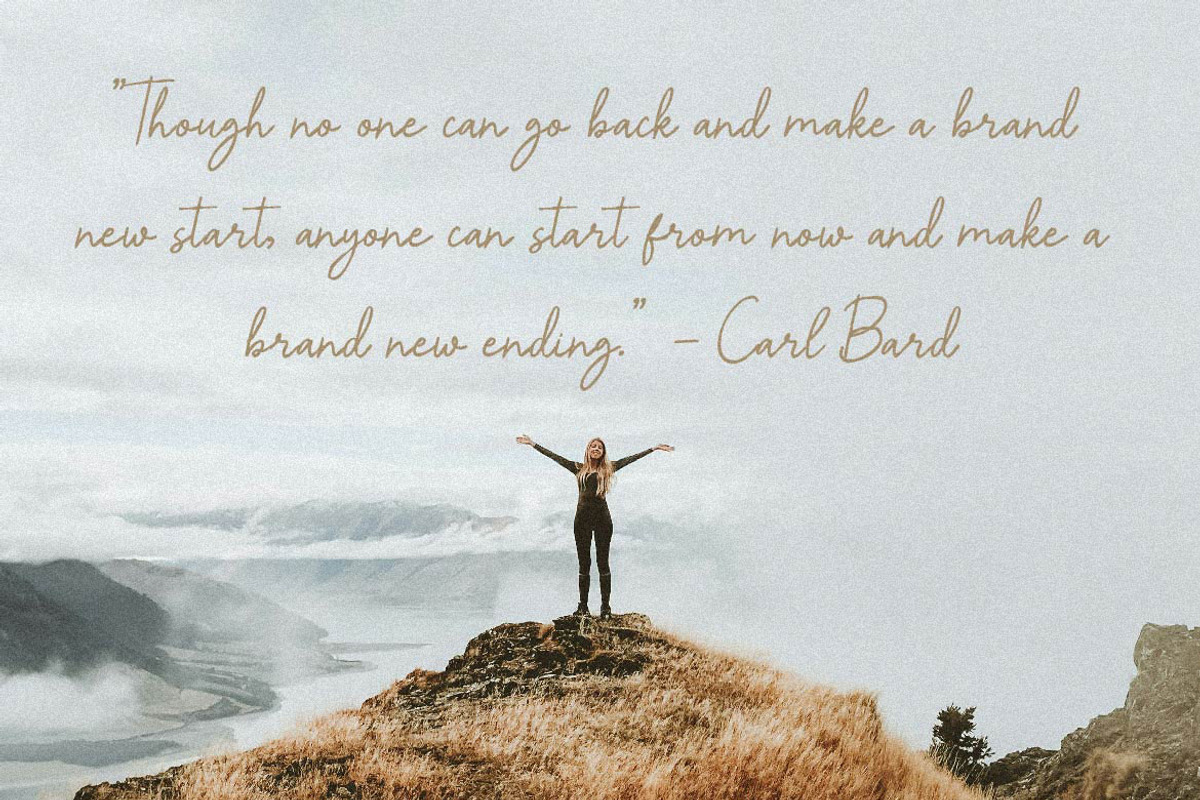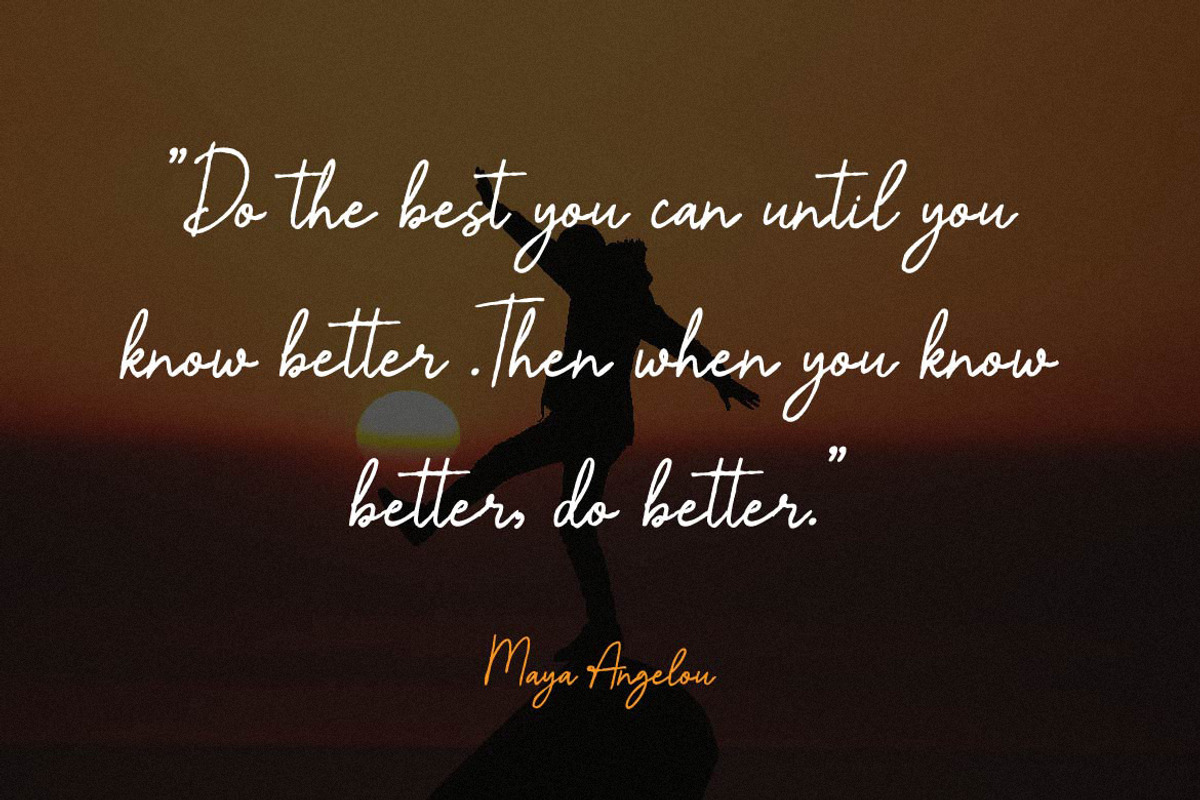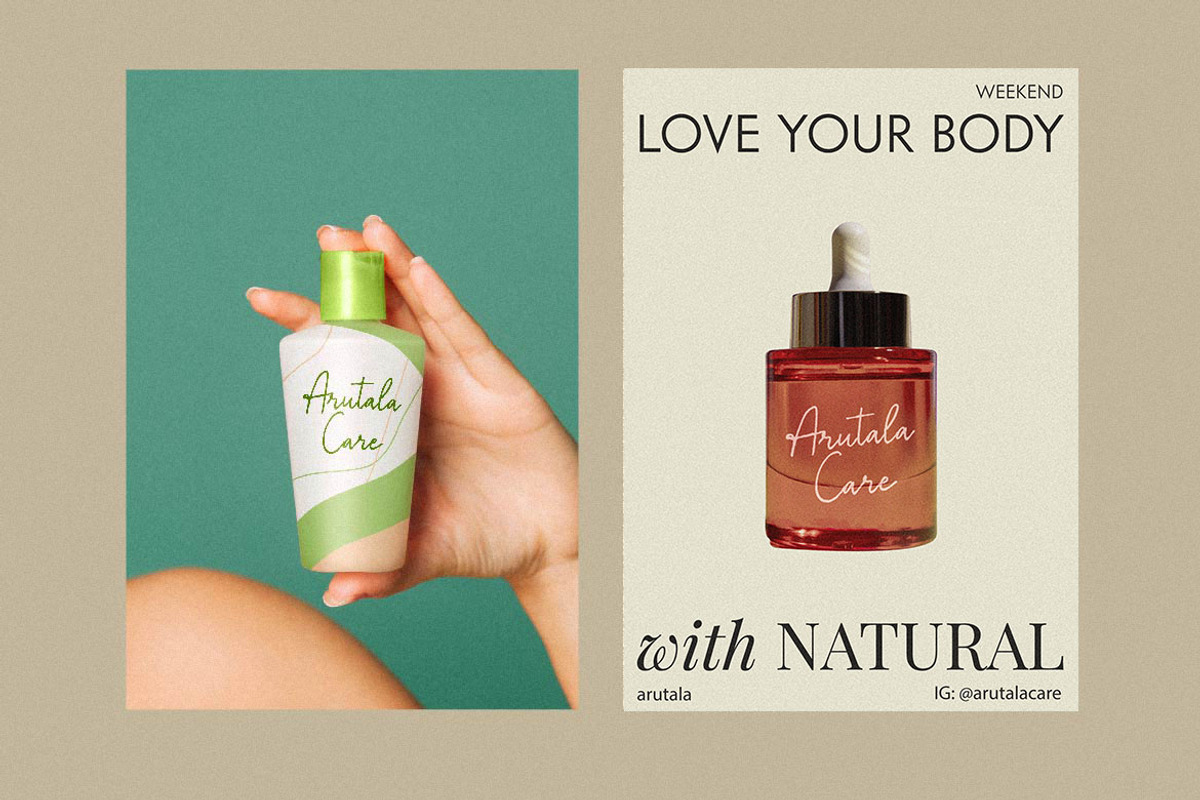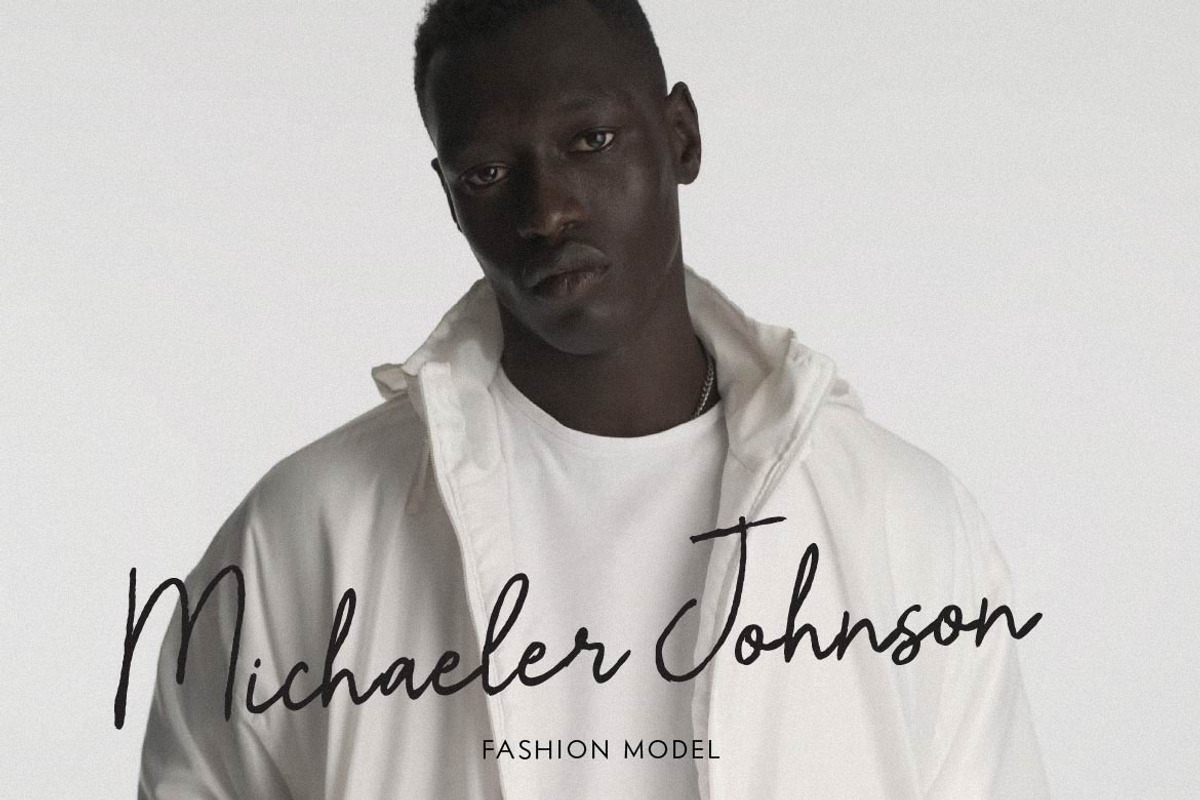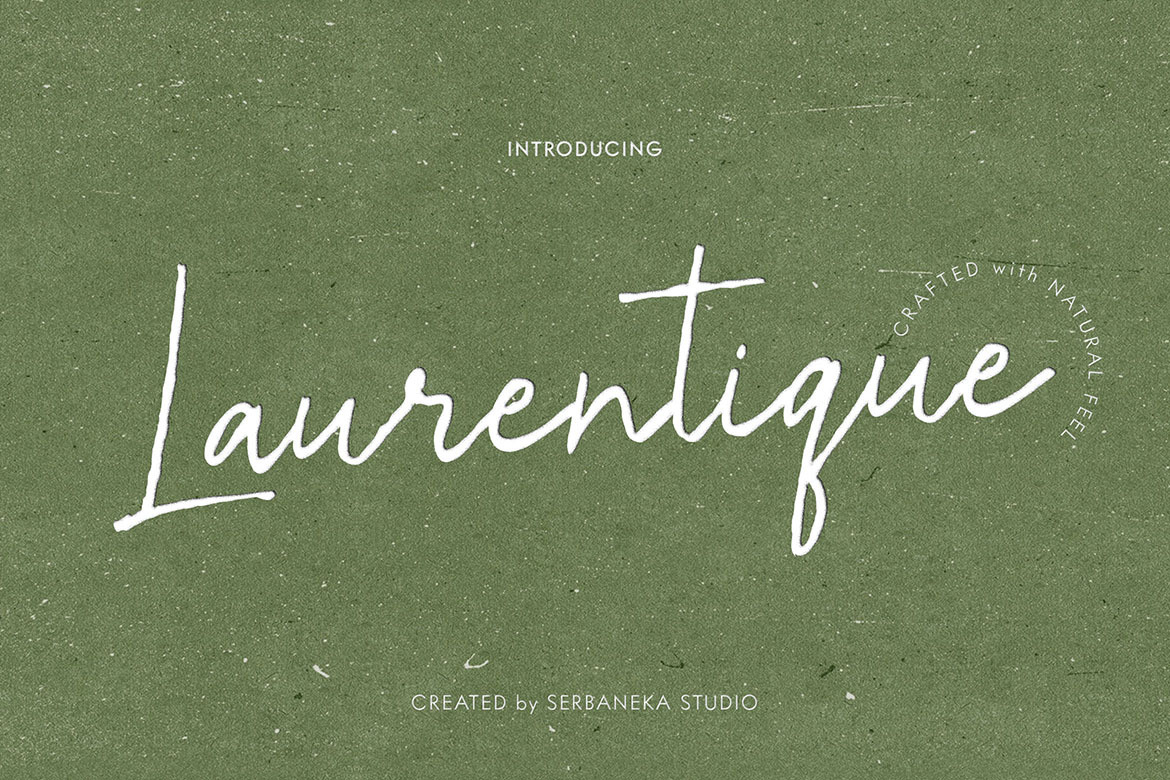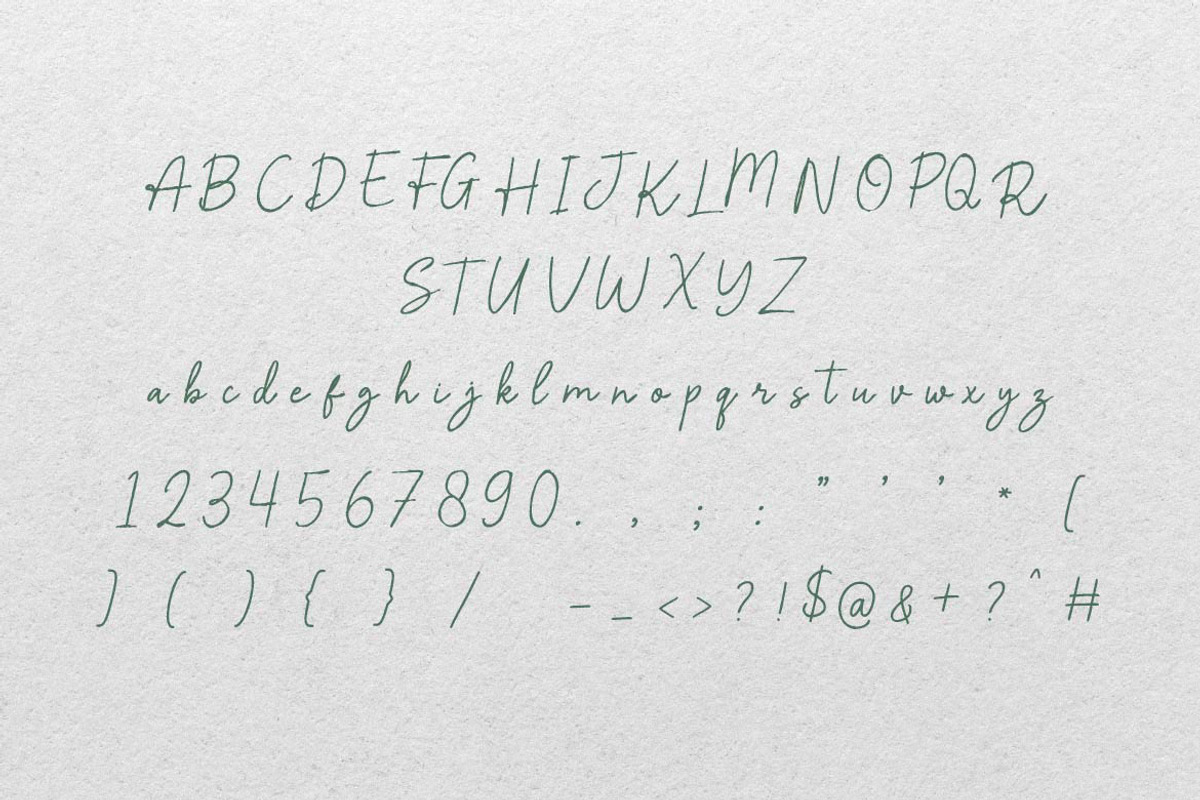
Laurentique Luxury Signature font
Laurentique is a natural signature handwriting font designed to bring authenticity, warmth, and organic elegance to your brand.
Inspired by real handwritten strokes, Laurentique features smooth flowing lines, natural curves, and a beautifully imperfect texture that feels personal and genuine. It’s perfect for brands that want to communicate honesty, creativity, and a handcrafted touch.
Whether you're designing skincare packaging, wellness branding, social media content, inspirational quotes, or modern logos, Laurentique delivers a soft yet confident handwritten style that feels both professional and personal.
This font works beautifully for lifestyle brands, beauty products, eco businesses, and feminine design projects.
- Uppercase & Lowercase Letters
- Natural Handwritten Style
- Smooth Signature Flow
- Skincare & Cosmetic Packaging
- Organic & Natural Product Branding
- Logo Design
- Signature Logos
- Social Media Content
- Inspirational Quotes
- Wedding Invitations
- Photography Watermarks
- Personal Branding